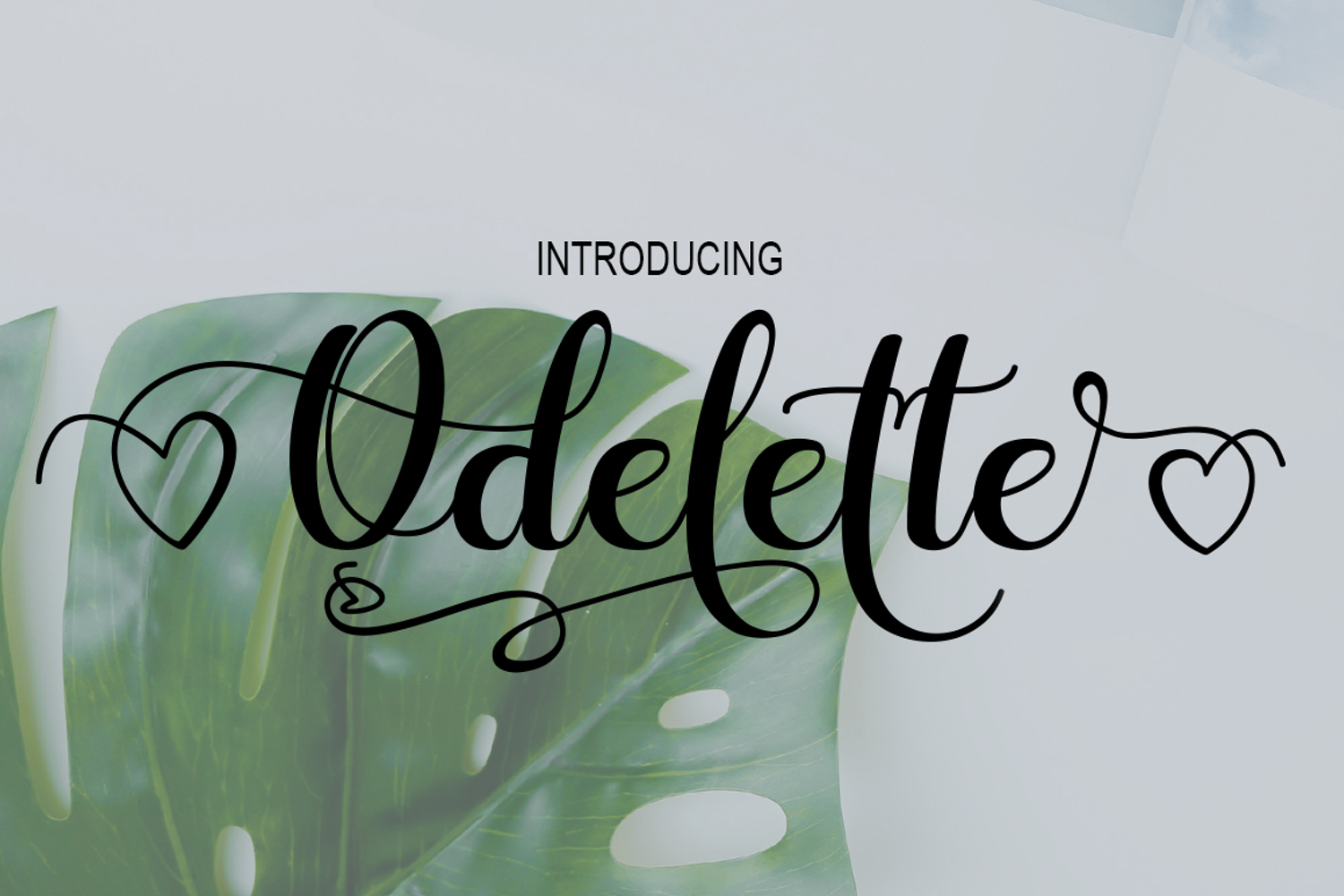
Odelette
Odelette scripts are modern calligraphic designs, including Regular. This font is casual and pretty with a sweep. Can be used for various purposes. such as logos, product packaging, wedding invitations, branding, titles, signs, labels, signatures, book covers, posters, quotes and more.
Odelette Script features alternative OpenType styles, ligatures and International support for most Western languages ??included. To enable alternative OpenType Stylistic, you need a program that supports OpenType features like Adobe Illustrator CS, Adobe Indesign & CorelDraw X6-X7, Microsoft Word 2010 or later. How to access all the alternate characters using Adobe Illustrator: